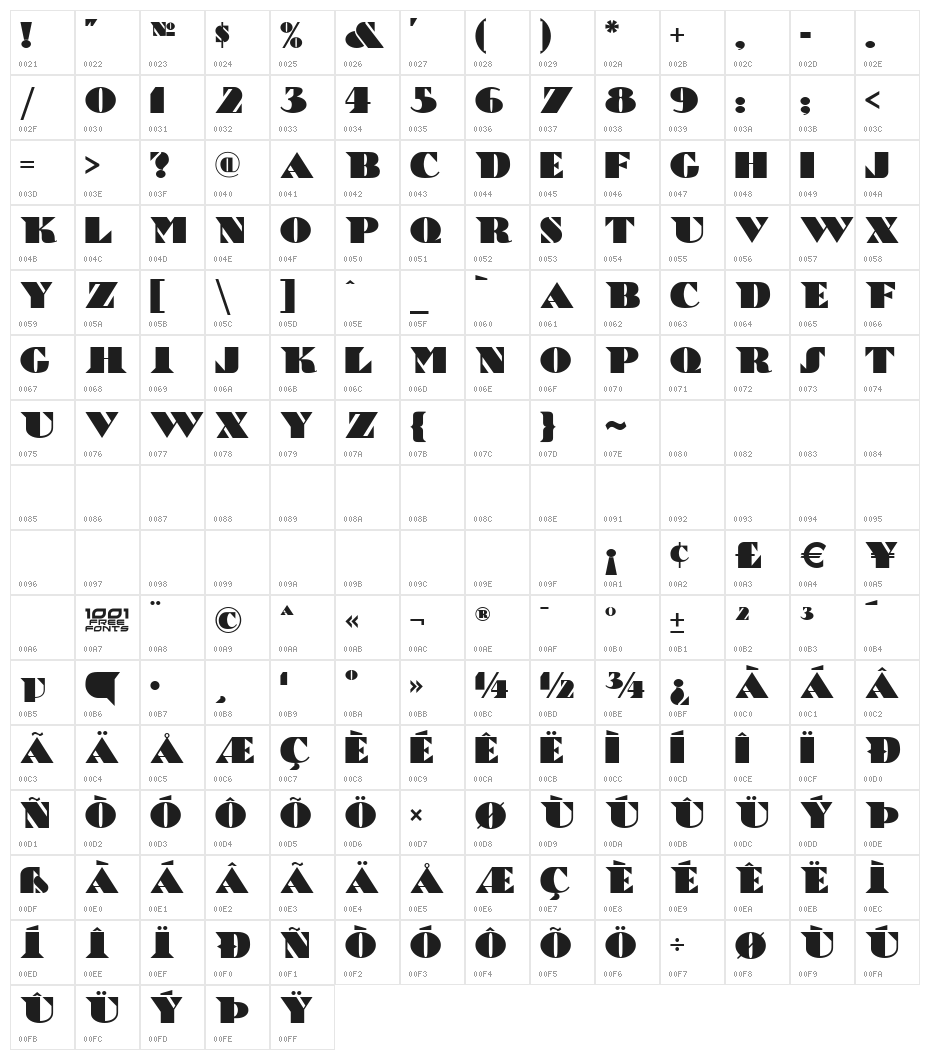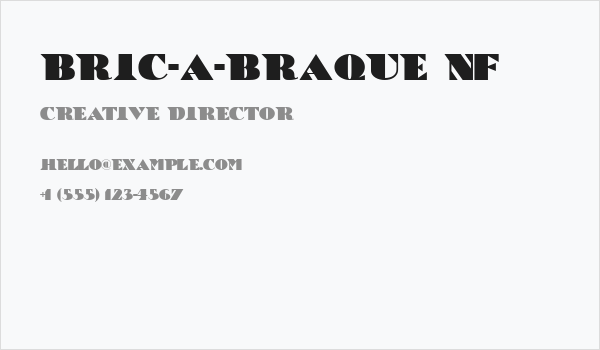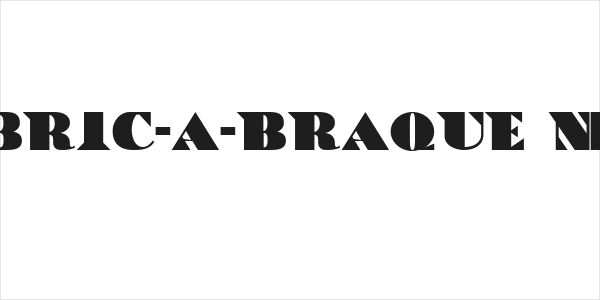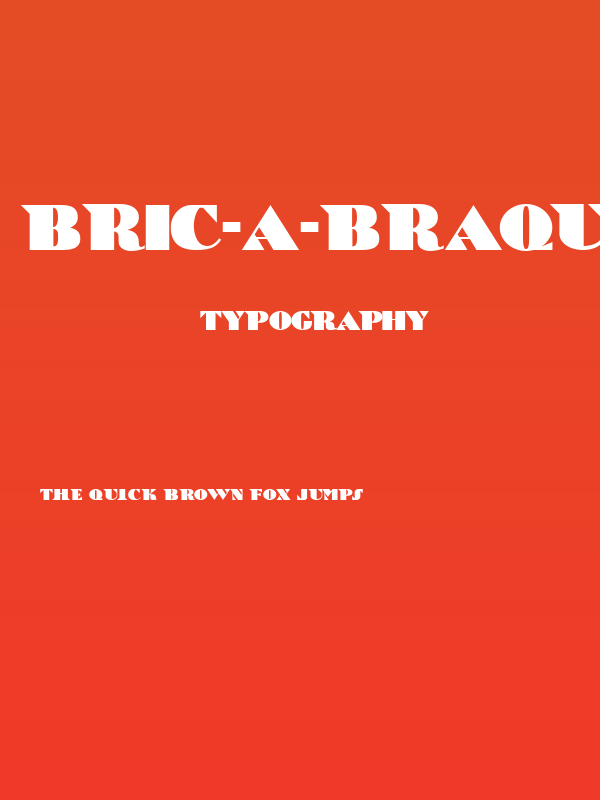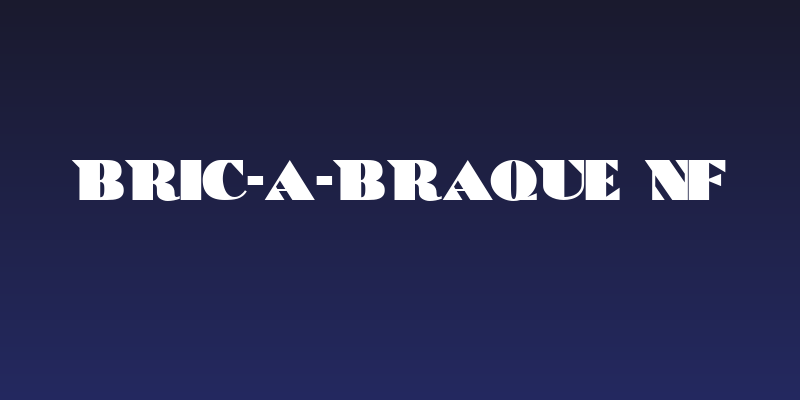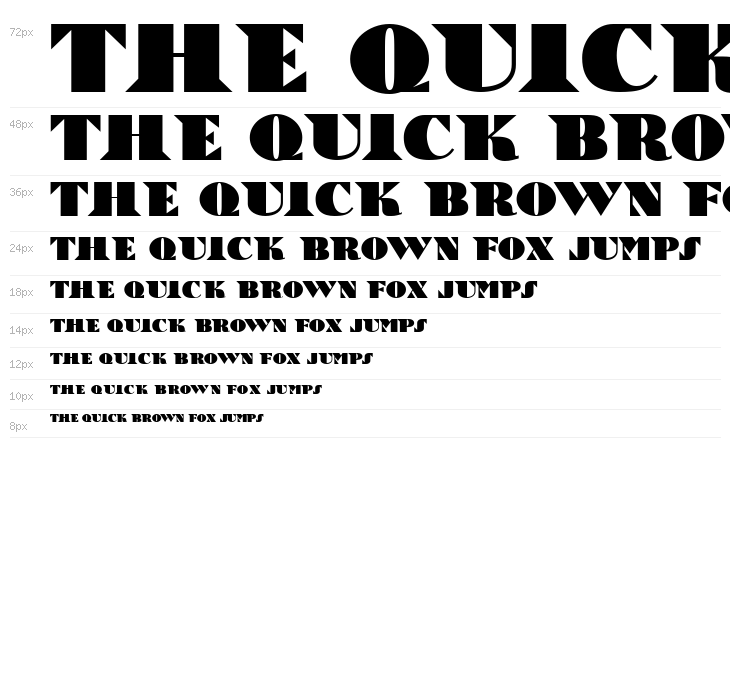
Bric-a-Braque NF Font
Bric-a-Braque NF Description
This font exhibits a bold and striking design with a high contrast in stroke thickness, creating a dramatic and eye-catching appearance. The characters are constructed with geometric shapes, featuring sharp angles and distinct cuts that give it a modern and avant-garde feel. The uppercase and lowercase letters maintain a consistent style, emphasizing the boldness and unique character of the font. The numerals and special characters are equally bold, ensuring a cohesive look across all elements. This font is ideal for projects that require a strong visual impact.
| Proposed Projects | Ideal for posters, branding, headlines, and any project needing a bold statement. |